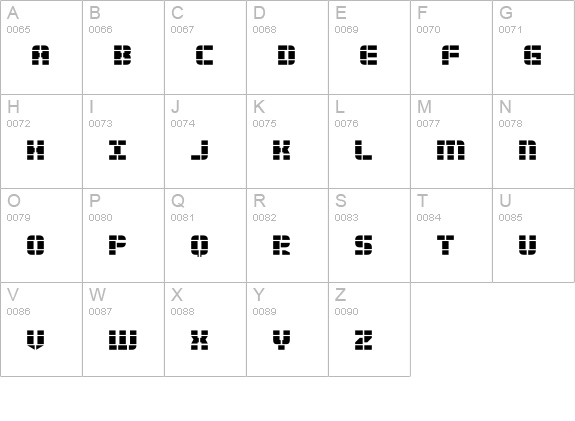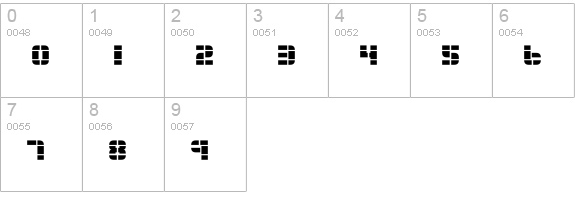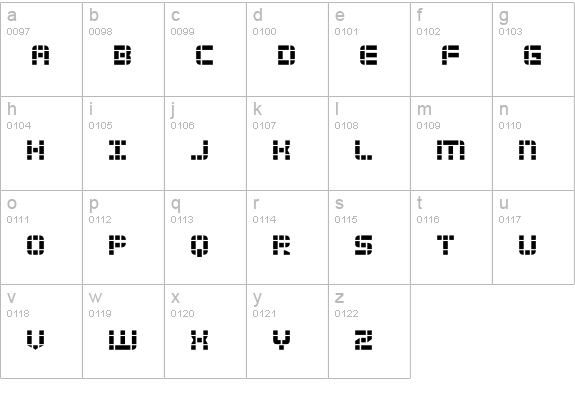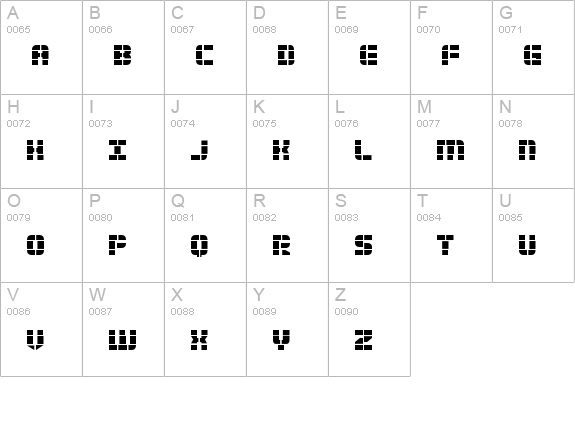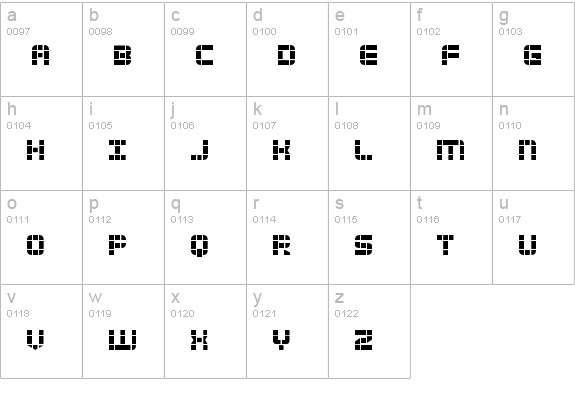
2Tech Font Details
Introducing 2Tech font, a sleek and modern typeface that effortlessly blends sophistication with a touch of technology. This versatile font is perfect for a wide range of design projects, from branding to web design to print materials. Its clean lines and futuristic aesthetic make it a standout choice for those looking to make a bold statement. One of the best things about 2Tech font is that it is completely free to download. You can easily access this stylish font at FontsMarket.com, where you can enhance your creative projects with this eye-catching typeface without any cost. Whether you're a seasoned designer or just starting out, 2Tech font is a must-have addition to your font collection. With its impeccable readability and contemporary feel, 2Tech font is sure to elevate your designs and captivate your audience. Don't miss out on the opportunity to incorporate this cutting-edge font into your next project – download 2Tech font now and let your creativity shine!